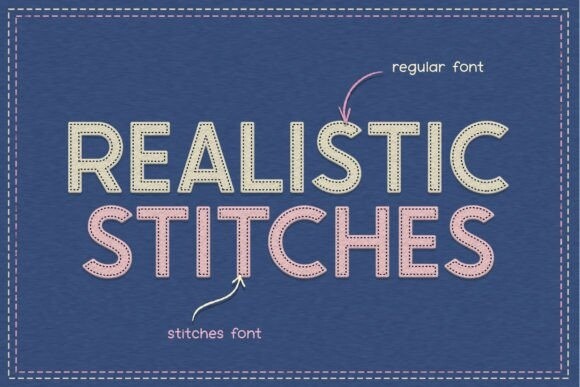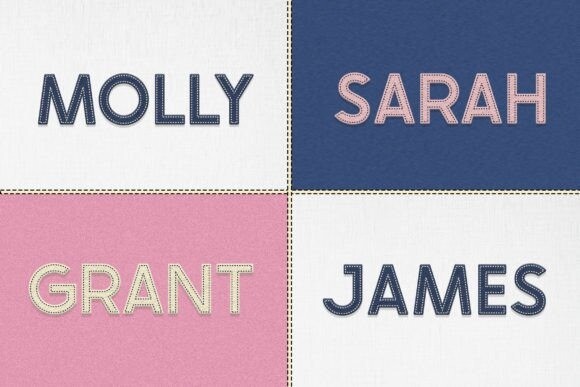
Needle and Thread Font
Needle And Thread is an equally solemn and playful display font, perfect for anyone who loves modern designs! This unique typeface is perfect for covers, magazines, posters, banners, or anything that needs superb legibility with a touch of fun.